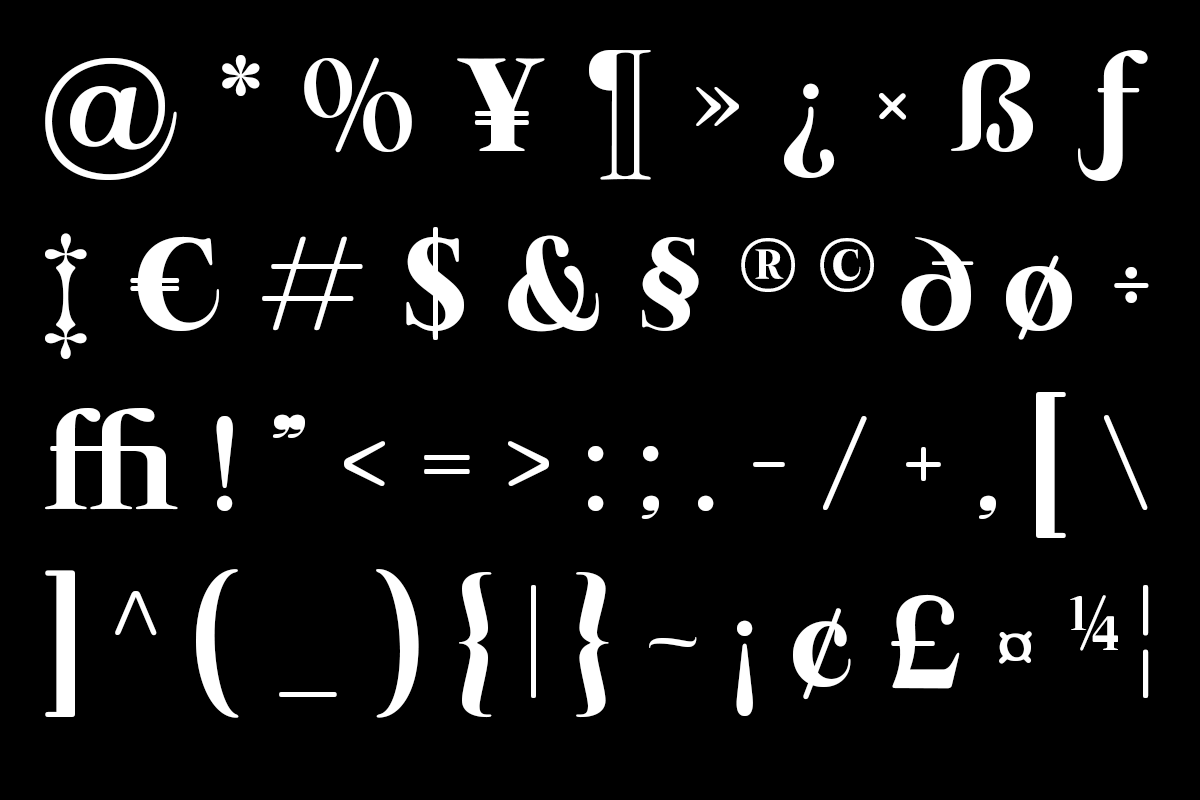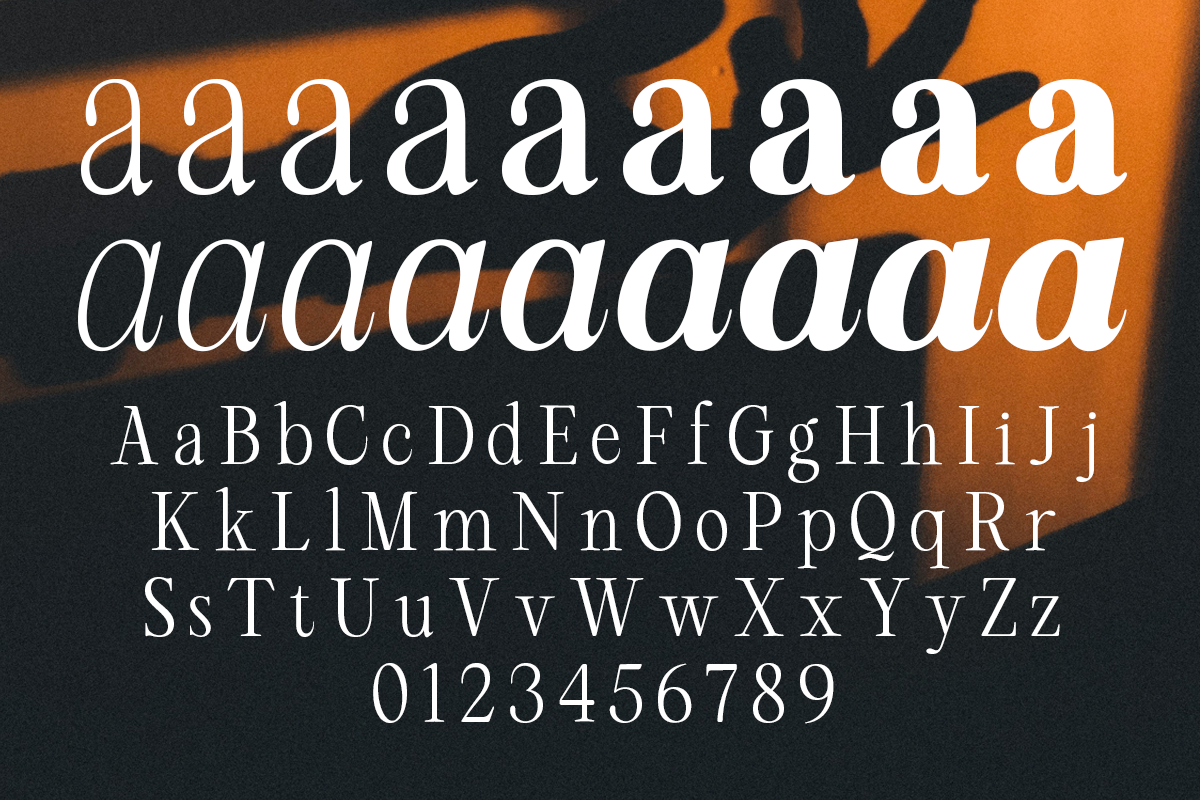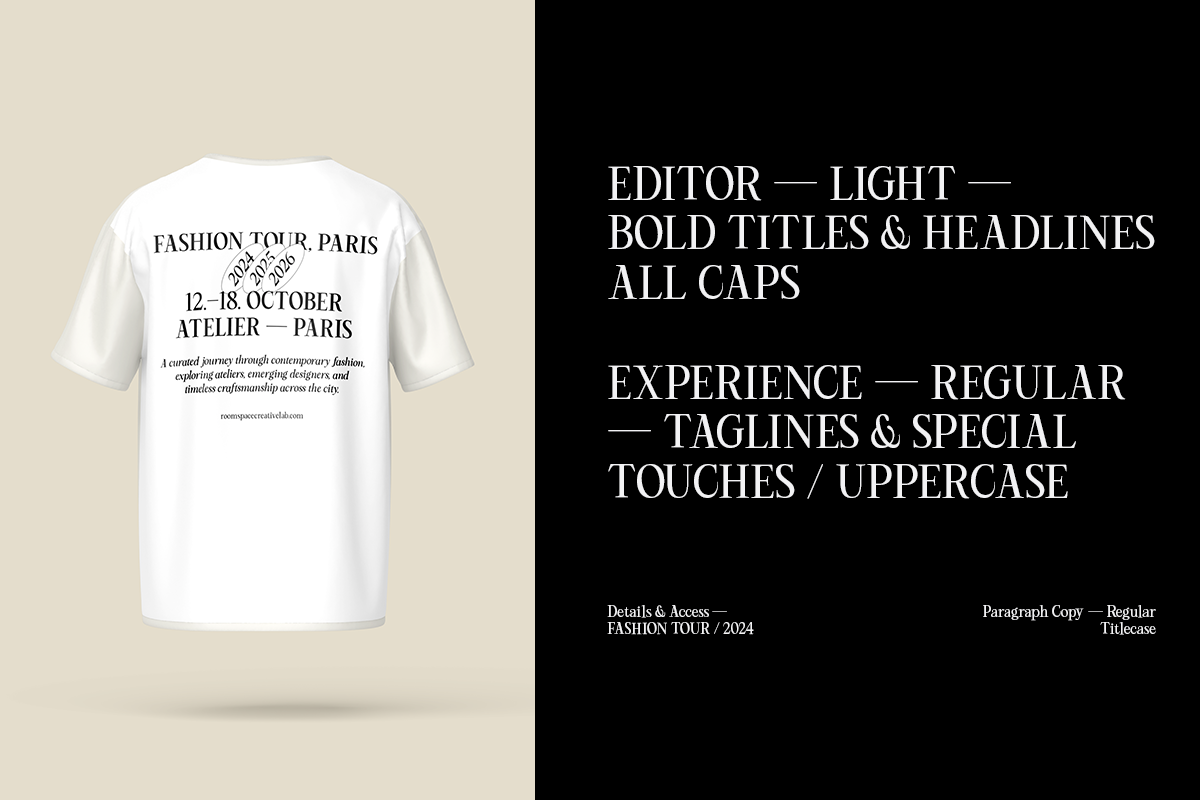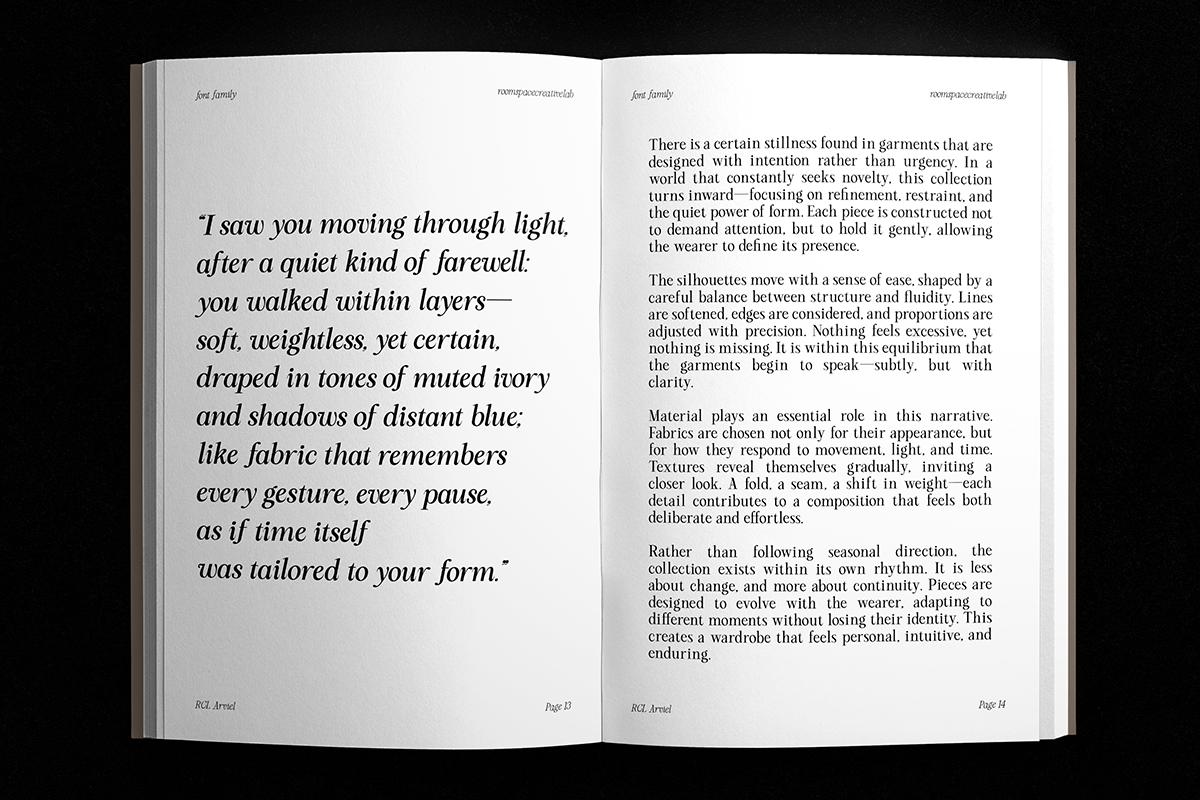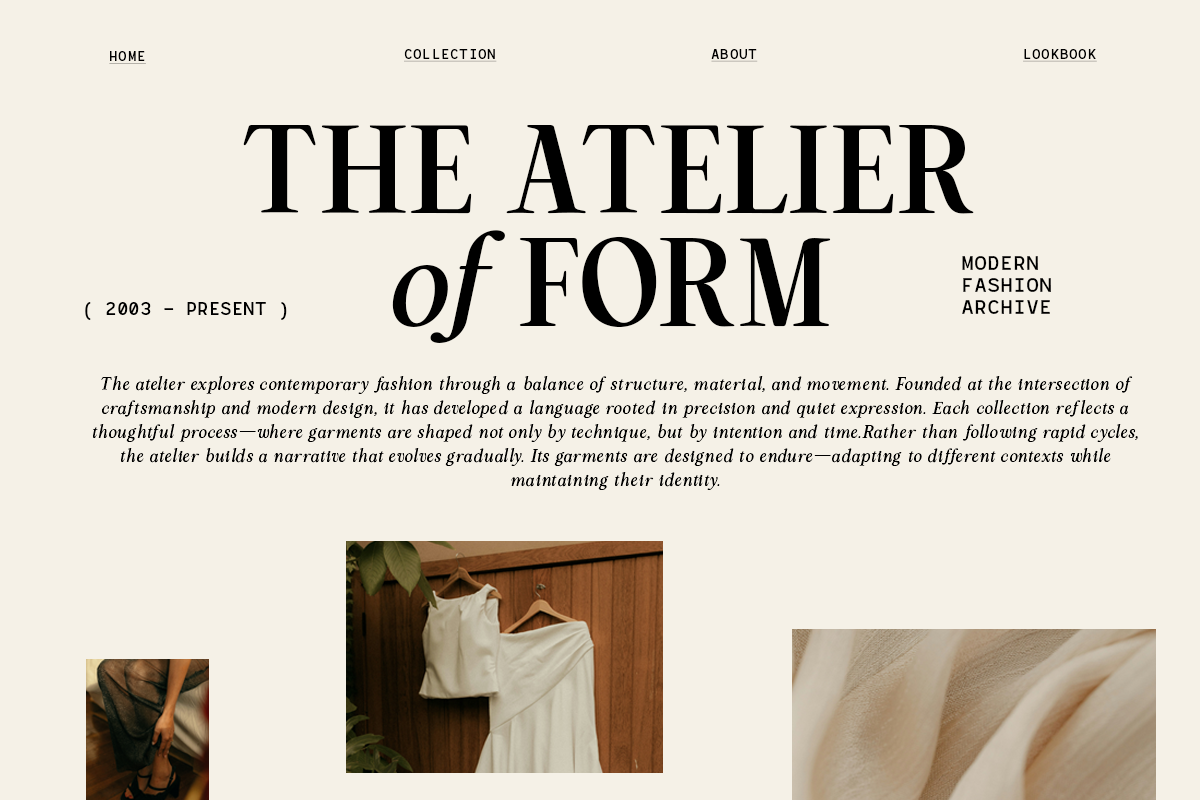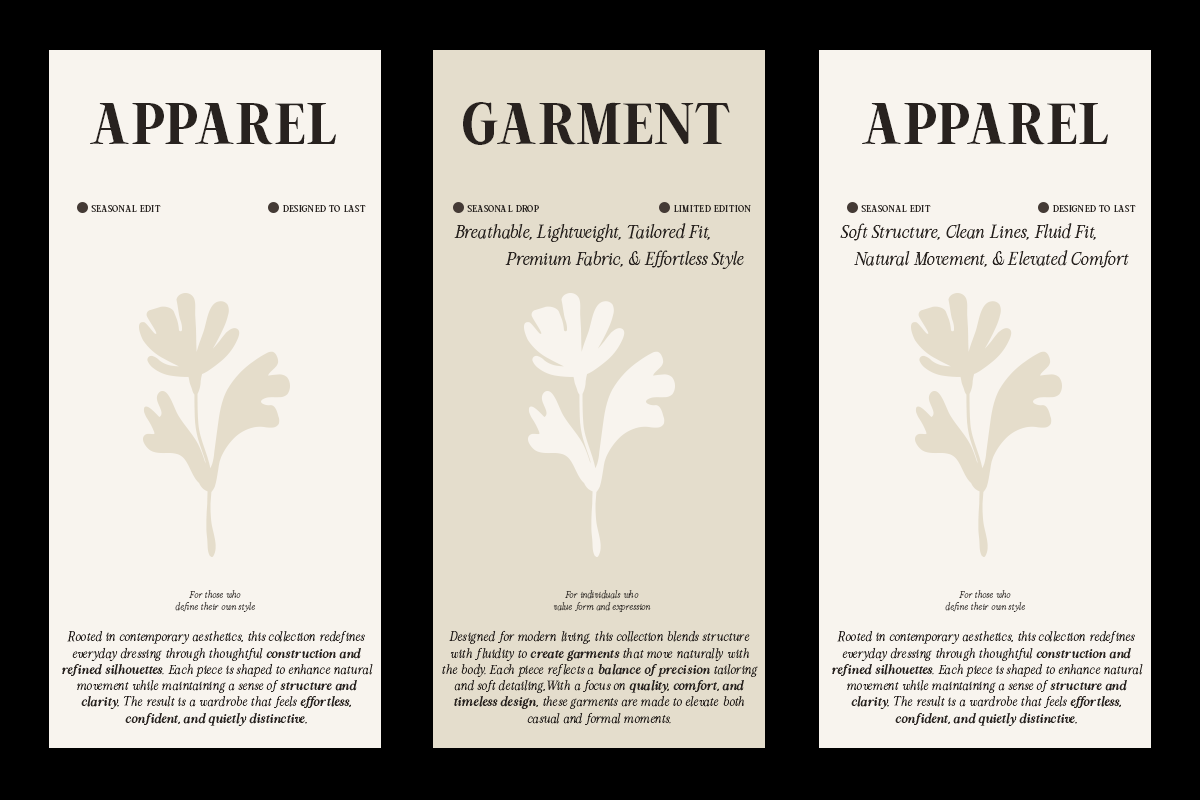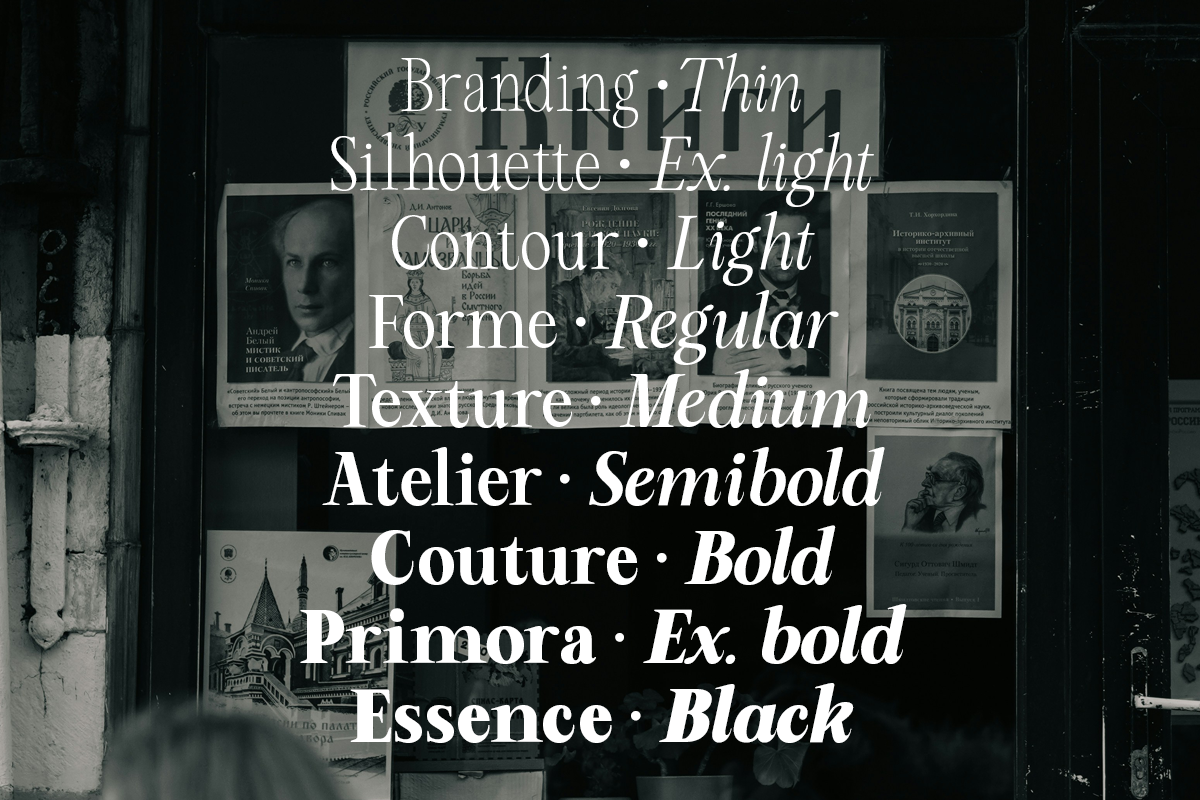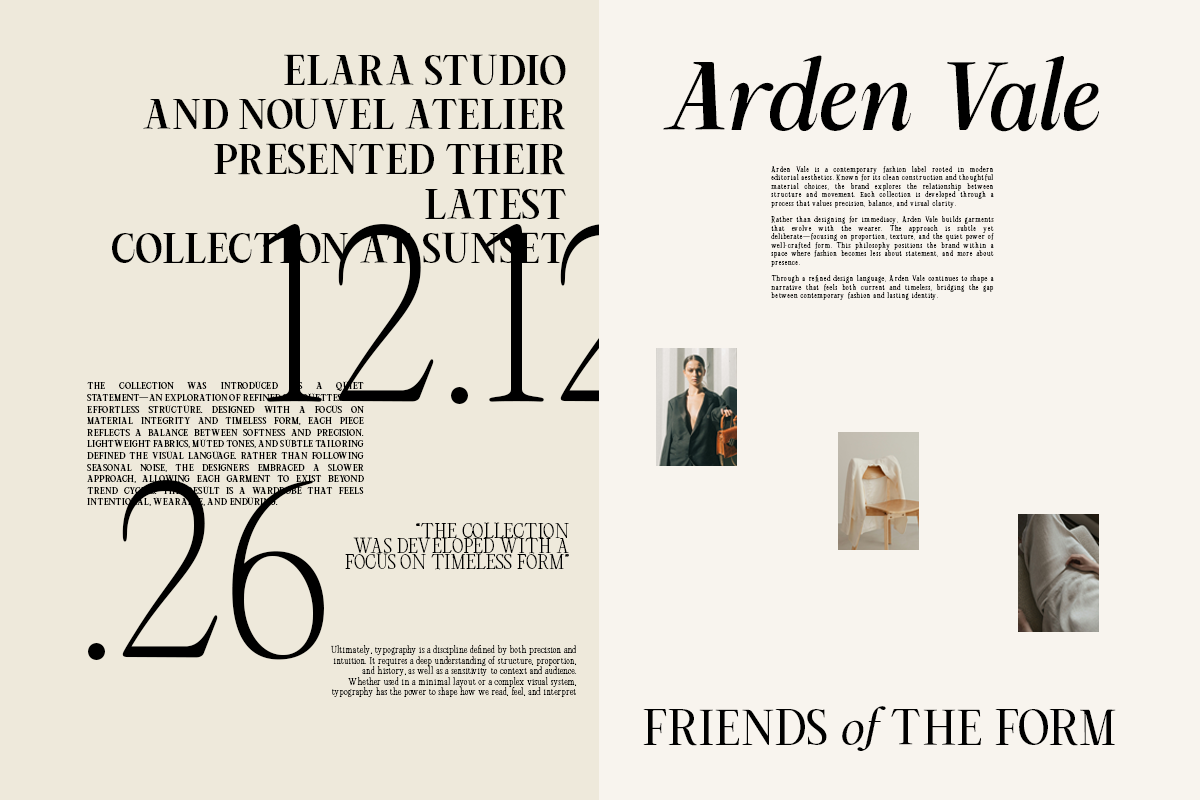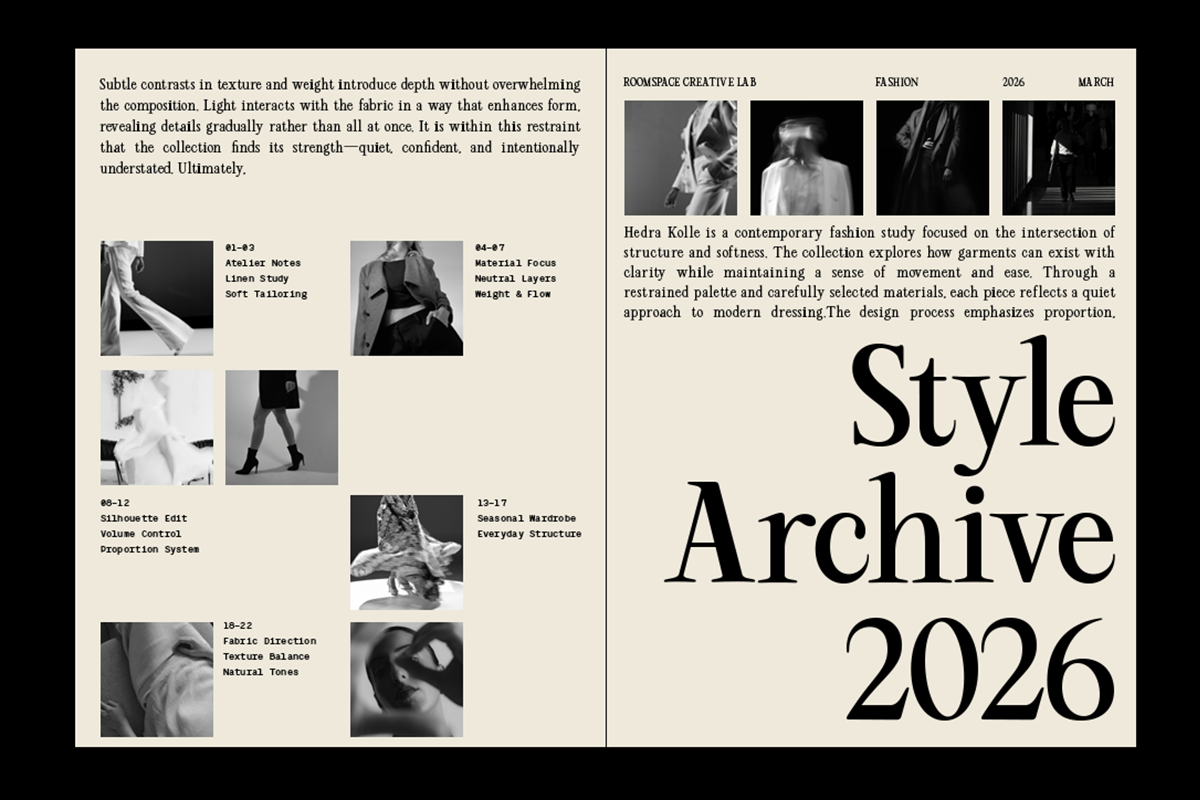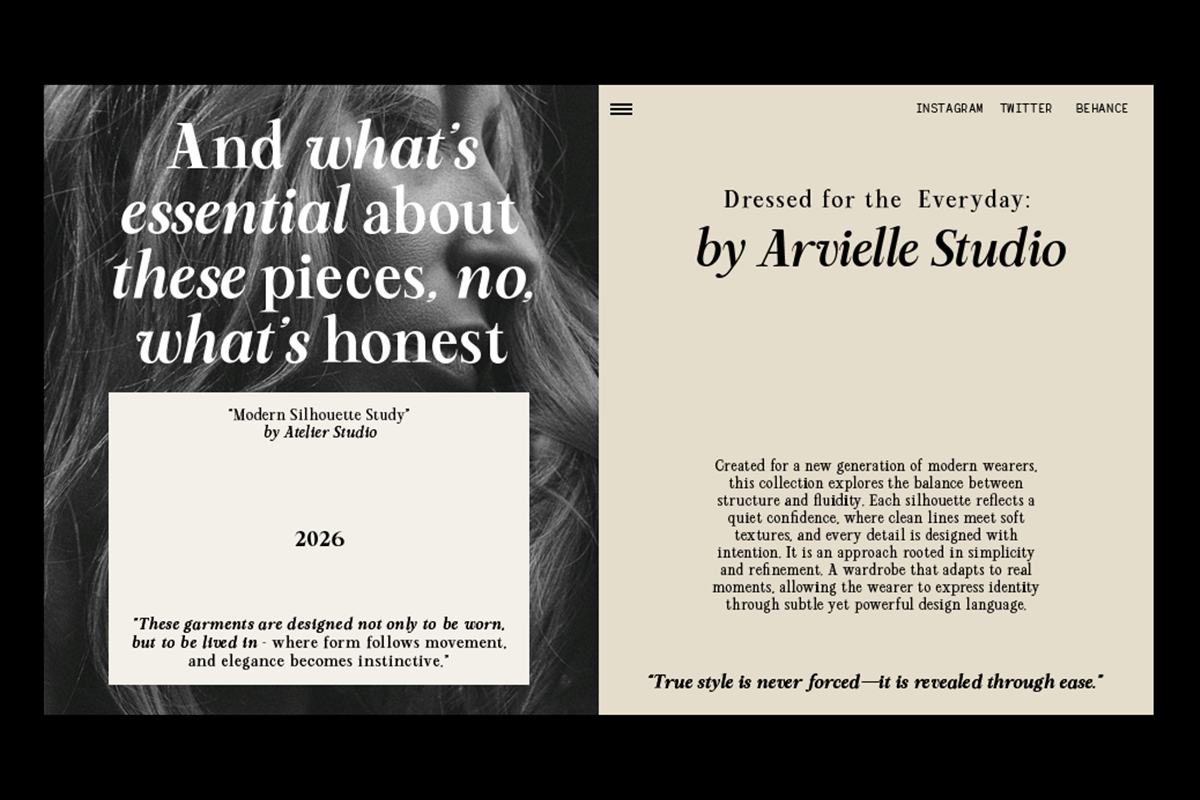
Arviel – Bold Editorial Serif Family
RCL Arviel is a modern serif typeface crafted to create strong visual impact through elegant contrast and expressive form. Defined by its sculpted serifs, dynamic curves, and editorial character, Arviel balances classical sophistication with contemporary boldness. With 18 weights available, this serif family offers flexibility for both dramatic headlines and refined layouts. It is designed for designers who want to create powerful branding, fashion visuals, and high-end editorial compositions.
- 18 font weights (Thin to Bold)
- High-contrast serif design
Perfect For : Luxury branding, Fashion editorials, Magazine headlines, Logo design, Creative direction, Packaging design and Digital campaigns.